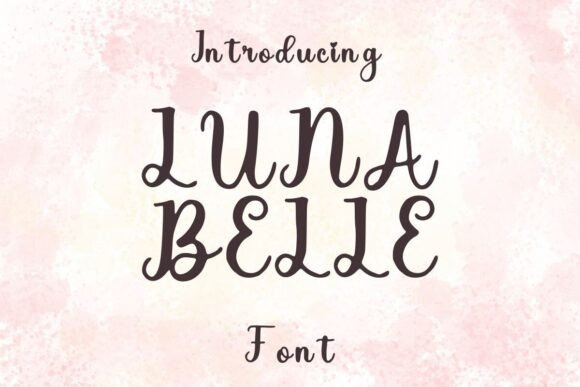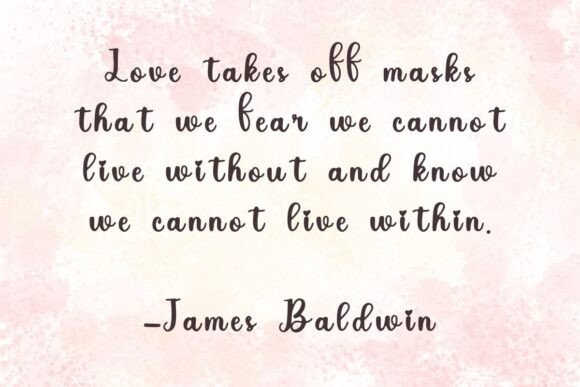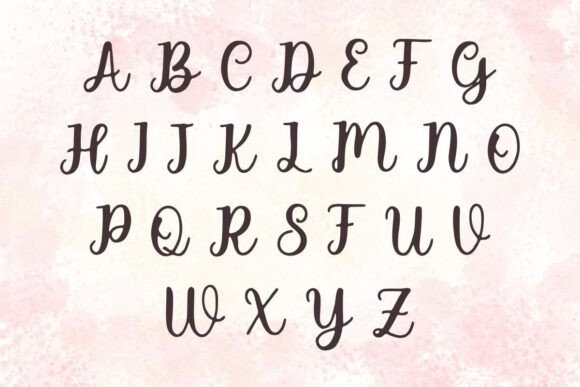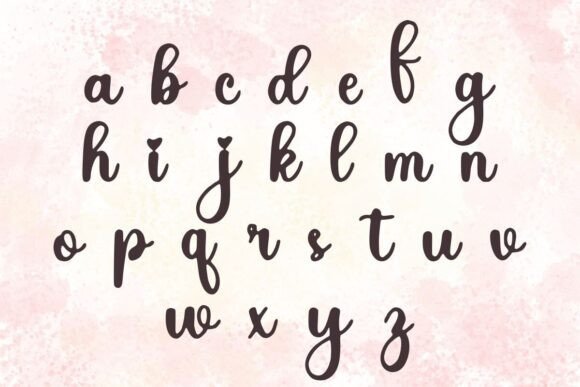
Luna Belle Font
About the Luna Belle Font
Let us introduce you to Luna Belle Font, where timeless design meets modern craftsmanship. Luna Belle is a delicate and whimsical script font inspired by the elegance of moonlit nights and the beauty of handwritten letters. Its graceful curves and flowing strokes create a perfect blend of sophistication and charm, making it ideal for wedding invitations, branding, greeting cards, and creative projects. Whether you’re crafting a romantic design or adding a touch of magic to your work, Luna Belle brings warmth and personality to every word.
Luna Belle’s delicate nature makes it perfect for projects requiring a touch of elegance and whimsy; wedding stationery, logos for boutiques, or short quotes on packaging are ideal applications. However, its thin strokes and elaborate forms make it unsuitable for body text or UI elements where readability is paramount. Avoid using it in long paragraphs or small sizes.
Pairing Luna Belle effectively requires considering its inherent lightness. A strong, geometric sans-serif like Montserrat would provide a striking contrast, while a classic serif such as Garamond would offer a more traditional and refined balance. For a more playful feel, consider pairing it with a rounded sans-serif like Lato.
The overall personality of Luna Belle is romantic and sophisticated, yet approachable. Its delicate curves communicate a sense of gentle charm, making it suitable for brands that wish to convey femininity, artistry, or a handcrafted aesthetic.
Luna Belle Font Usage Examples
Luna Belle Font Example